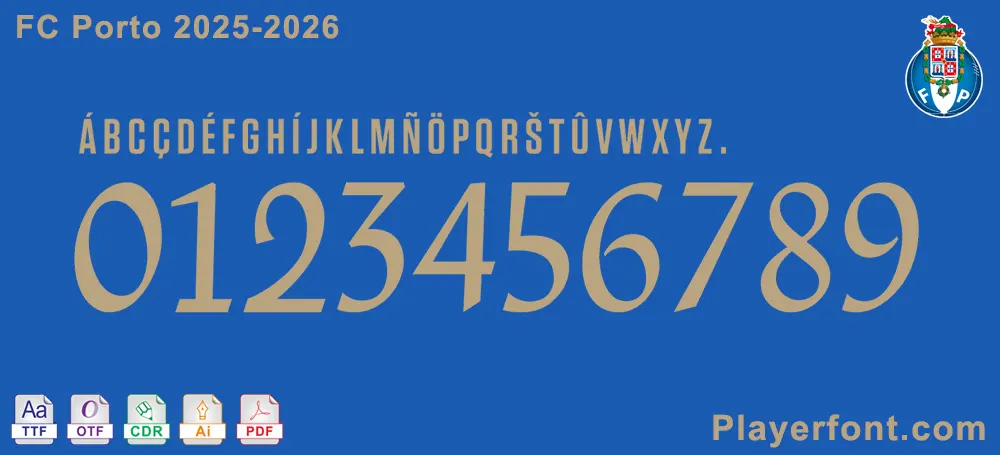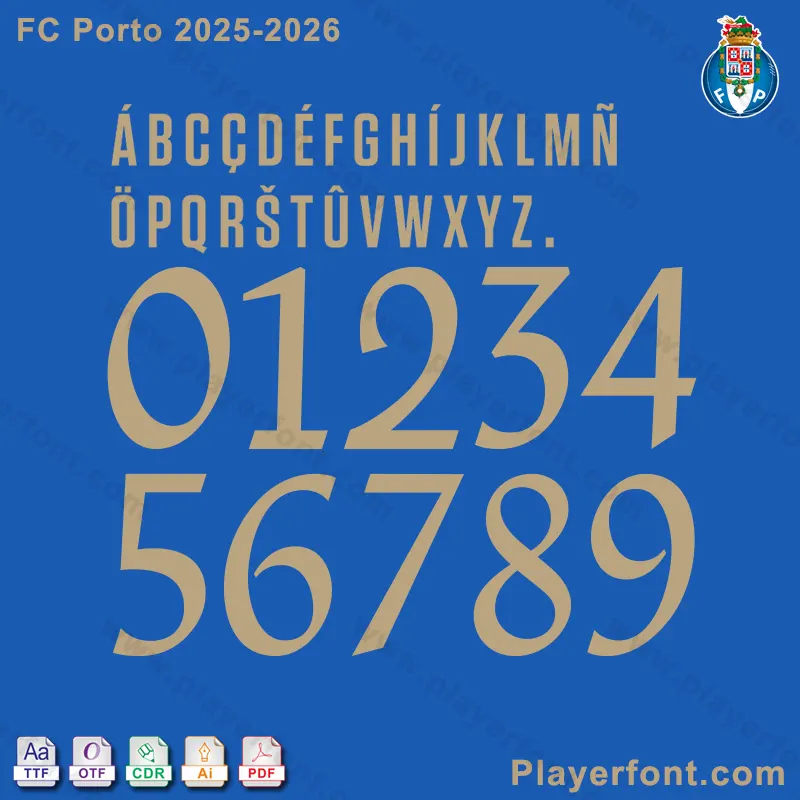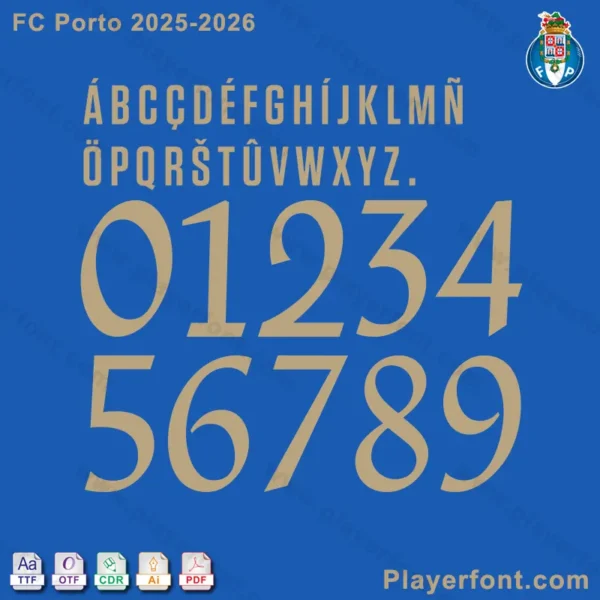
Get your hands on the authentic and meticulously crafted FC Porto 2025-2026 font, as seen on the club’s official branding and jerseys for the upcoming season. Whether you’re a die-hard fan, a graphic designer, or creating custom apparel, this font package provides everything you need to bring the spirit of the Dragões to your creations.